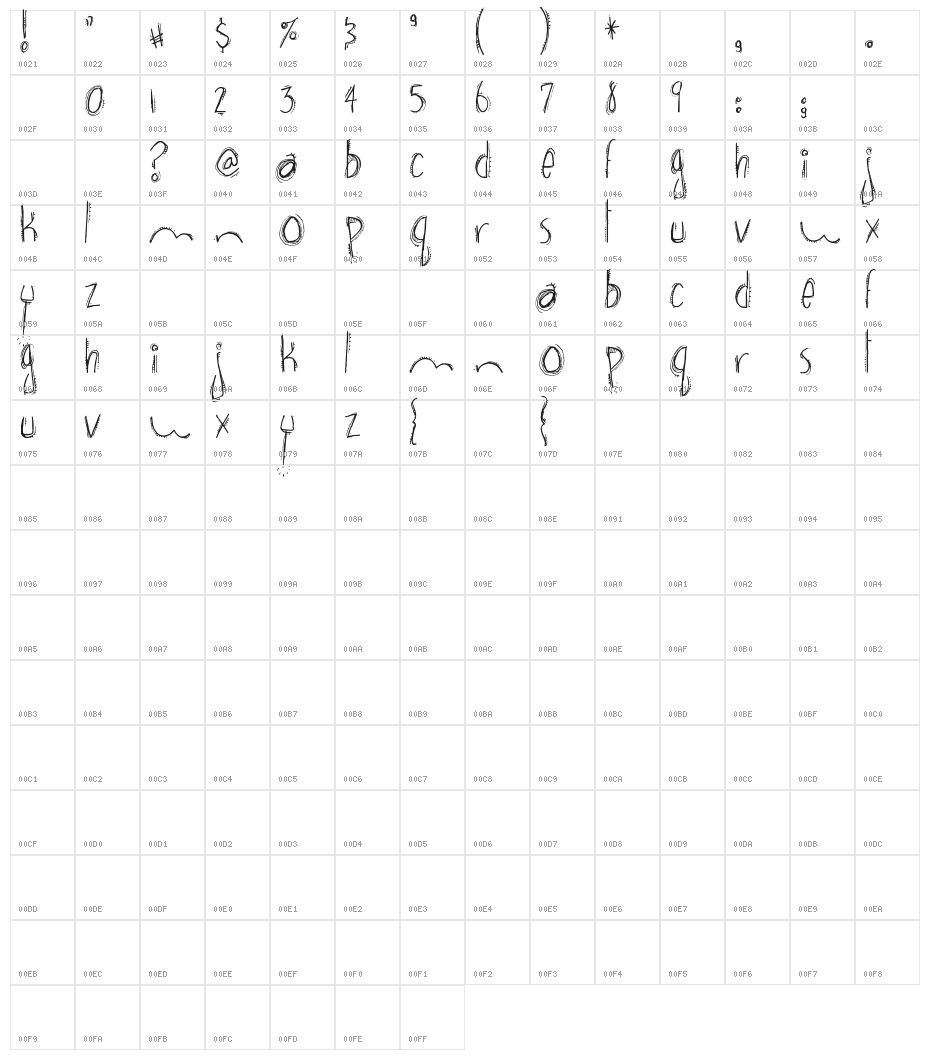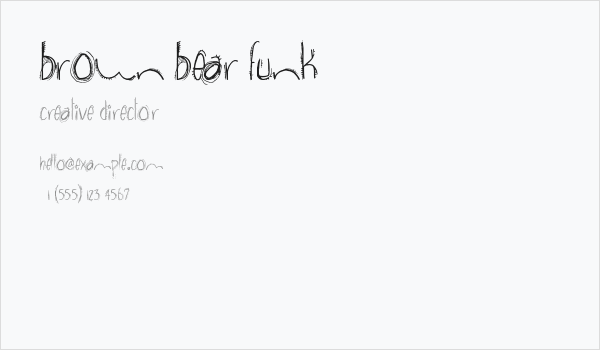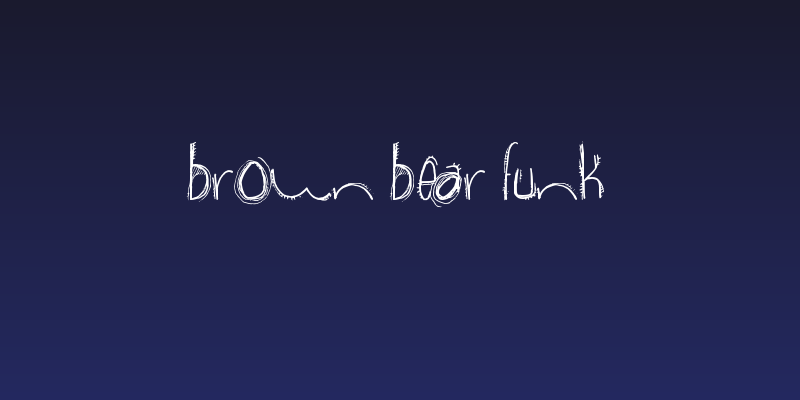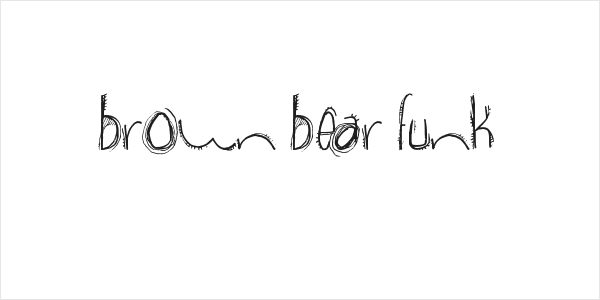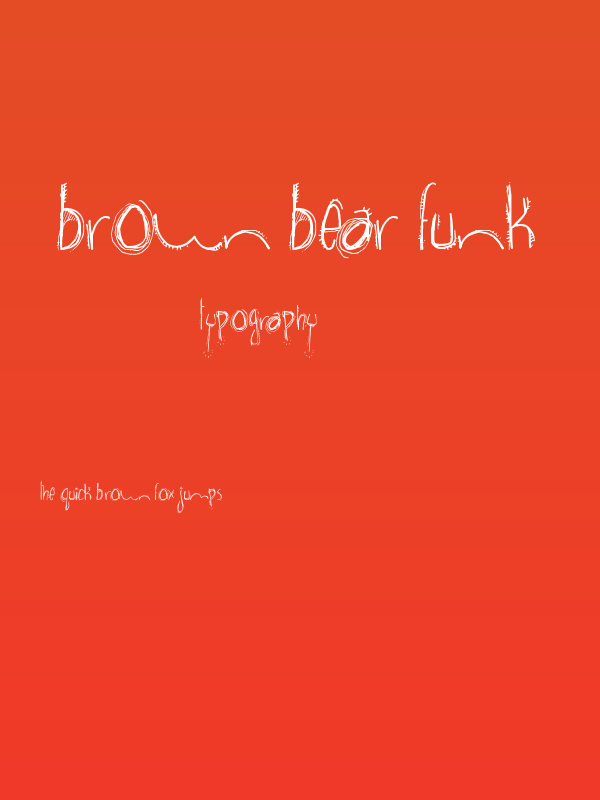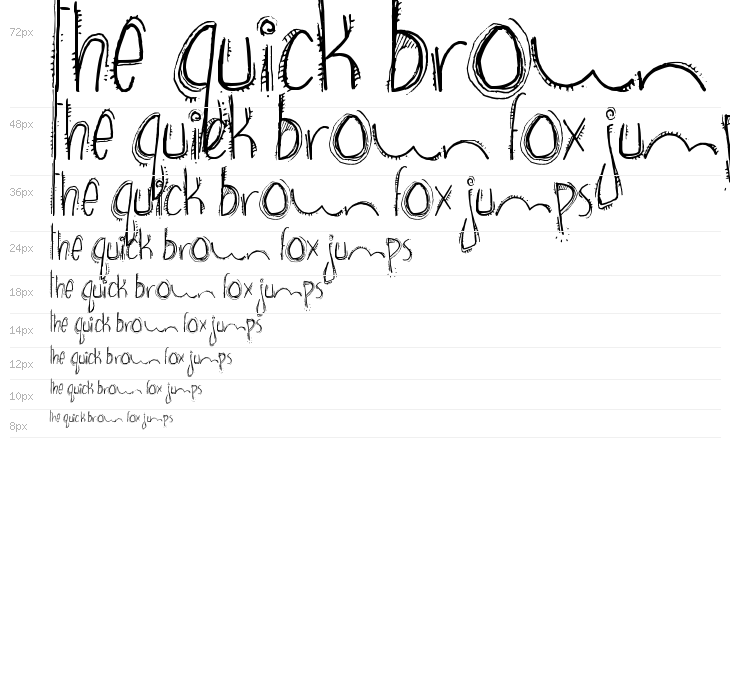
brown bear funk Font
brown bear funk Description
This font features a playful and quirky design with a hand-drawn aesthetic. The characters are irregular and whimsical, with a sketch-like appearance that adds a sense of movement and energy. The strokes are uneven, giving it a textured and dynamic feel. The font includes both uppercase and lowercase letters, numbers, and a variety of special characters, all maintaining the same lively style. Its unique character makes it stand out, perfect for projects that require a fun and informal touch.
| Proposed Projects | Ideal for children's books, playful branding, creative posters, and informal invitations. |